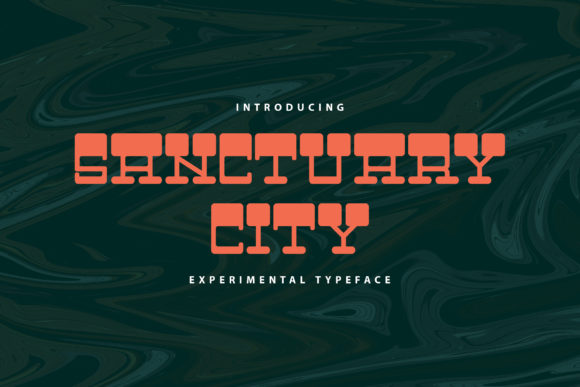
Dive into the captivating world of Sanctuary City Font, where nostalgia meets boldness, creating a timeless masterpiece! This display font exudes a raw and experimental charm, ready to transform your designs into extraordinary works of art.
Sanctuary City Font defies conventions, seamlessly blending the ruggedness of the Wild West with the elegance of modern typography. Its versatility shines through, effortlessly adapting to a myriad of creative endeavors, from captivating headlines to soul-stirring Western-themed designs.
Each character in this typographic treasure is meticulously crafted, imbued with a depth and personality that will ignite your imagination. Unleash your creativity with alternate glyphs and ligatures, empowering you to customize your designs with infinite possibilities.
Sanctuary City Font is more than just a collection of letters; it's a gateway to boundless expression. Experience the raw power of nostalgia and the thrill of the unknown as you weave captivating stories through your designs.
Don't settle for ordinary fonts that blend into the background. Embrace the bold, the experimental, and the timeless with Sanctuary City Font. Let your designs stand out with a font that captures the essence of adventure and the allure of the untamed.